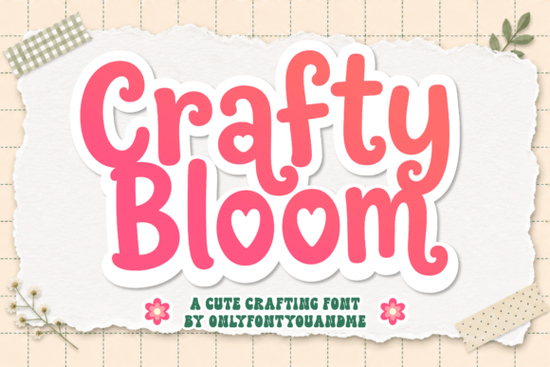
If you're looking for a font that brings a playful and chunky feel to your designs, Crafty Bloom Font might just be what you need. This display font has a soft handmade quality that makes it perfect for crafting projects, children’s designs, and more. Let's dive into why Crafty Bloom could be a great addition to your creative toolkit.
Why Choose Crafty Bloom Font for Your Projects?
Crafty Bloom is designed to look fun, cheerful, and crafty. Its rounded letterforms, bold weight, and slightly irregular shapes give it a warm, hand-drawn personality. The cute heart details inside some characters add a sweet decorative touch, making it ideal for adding a friendly and creative vibe to your work.
What Makes Crafty Bloom Stand Out?
- Rounded Letterforms: The rounded edges of the letters give a soft, approachable feel, which is perfect for designs aimed at children or any project that needs a gentle, welcoming appearance.
- Bold Weight: The bold weight of the font makes it stand out, ensuring that your text is easy to read and visually impactful, even from a distance.
- Hand-Drawn Feel: The slightly irregular shapes and hand-drawn style add a unique, personal touch to your designs, making them feel more authentic and less generic.
- Heart Details: The cute hearts inside some characters add a charming, decorative element, making the font especially suitable for greeting cards, party invitations, and other celebratory designs.
Perfect for a Variety of Creative Projects
Crafty Bloom is versatile and can be used in a wide range of creative projects. Here are some ideas:
- Crafting Projects: Use it for labels, tags, and signs for your DIY crafts. It adds a fun, homemade feel that complements handmade items perfectly.
- Children’s Designs: Whether you’re designing educational materials, coloring books, or activity sheets, Crafty Bloom’s playful style is sure to engage young audiences.
- Stickers and Greeting Cards: The font’s decorative elements make it a great choice for creating stickers and greeting cards that stand out and bring a smile to people’s faces.
- Cricut Designs: If you’re into Cricut crafting, Crafty Bloom is a fantastic option for cutting and designing custom vinyl, iron-on, and paper projects.
- Social Media Graphics: Add a playful touch to your social media posts with this font. It’s perfect for creating eye-catching graphics that grab attention and convey a friendly, creative message.
- Handmade Product Branding: For small businesses and independent sellers, Crafty Bloom can help establish a consistent, creative brand identity that resonates with customers.
How Does Crafty Bloom Compare to Other Display Fonts?
While there are many display fonts available, Crafty Bloom stands out with its unique combination of playfulness and charm. Here’s how it compares to some other popular options:
- Gemstone Font offers a more elegant and sophisticated look, making it suitable for high-end designs. In contrast, Crafty Bloom is more casual and fun, perfect for a wider range of creative and child-friendly projects.
- The Pickles House Font has a quirky, whimsical style that can be a bit more niche. Crafty Bloom, with its broad appeal and versatility, is easier to incorporate into a variety of designs.
- Magazine Design Font is more suited for editorial and professional use. Crafty Bloom, on the other hand, is ideal for creative and informal projects where a friendly, handmade feel is desired.
- Good Vibes Only Duo Font provides a modern, upbeat vibe. While both fonts are cheerful, Crafty Bloom’s hand-drawn and heart-detailed style gives it a more traditional, crafty feel.
- Have A Nice Day Honey Font is another playful option, but it has a more retro, vintage aesthetic. Crafty Bloom, with its contemporary and clean design, is more versatile for modern and varied projects.
Tips for Using Crafty Bloom Font Effectively
To get the most out of Crafty Bloom, here are some practical tips:
- Combine with Simpler Fonts: Pair Crafty Bloom with simpler, more legible fonts for a balanced look. This helps keep the focus on the playful elements while maintaining readability.
- Use for Headings and Titles: Crafty Bloom works well for headings and titles, where its bold and decorative nature can shine. Use it sparingly in body text to avoid overwhelming the reader.
- Experiment with Colors: Play around with different color schemes to find what best complements your design. Pastel and bright colors often work well with the font’s playful style.
- Test on Different Backgrounds: Make sure the font is legible on various backgrounds. Test it on light, dark, and patterned backgrounds to ensure it stands out clearly.
- Keep It Simple: Don’t overuse the decorative elements. A little goes a long way, and too much can make your design look cluttered.